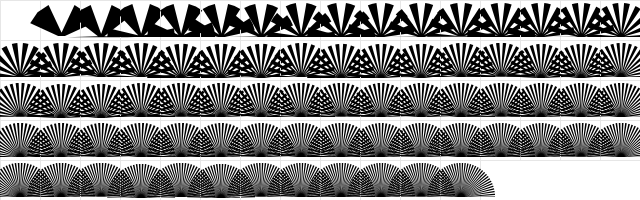
Complete Half SunBurst-w4-01 Regular glyph index. Displaying only characters natively supported by Half SunBurst-w4-01 Regular font.
Half SunBurst-w4-01 is a composed and adaptable typeface that performs quietly and consistently across a wide range of design contexts.
Who designed the Half SunBurst-w4-01 Regular font?
This font was published by HT. Check the technical specs section for copyright and designer details.